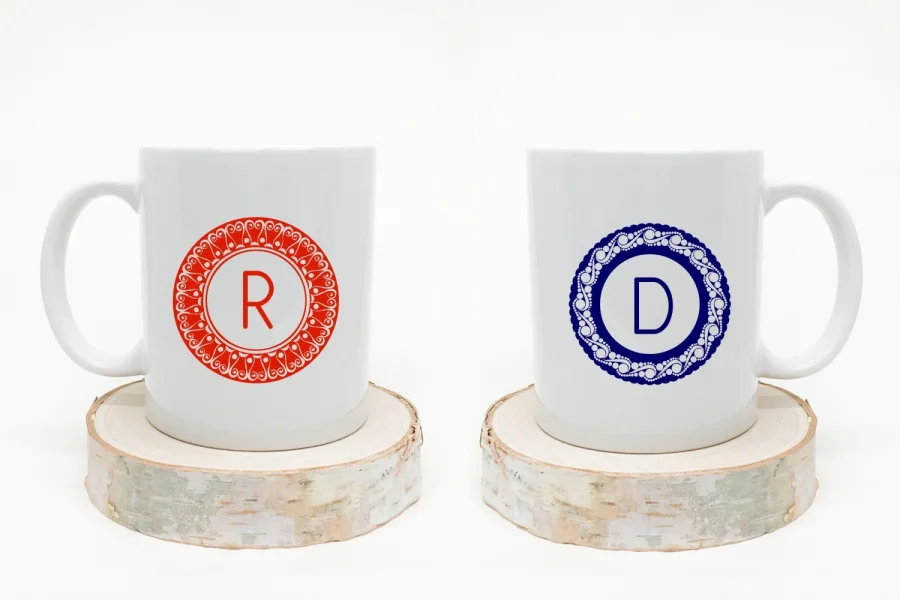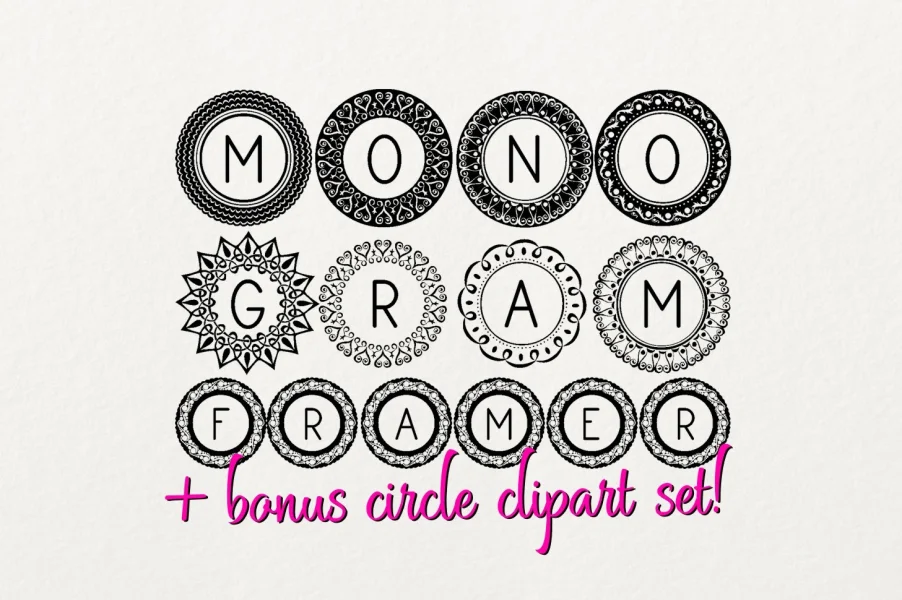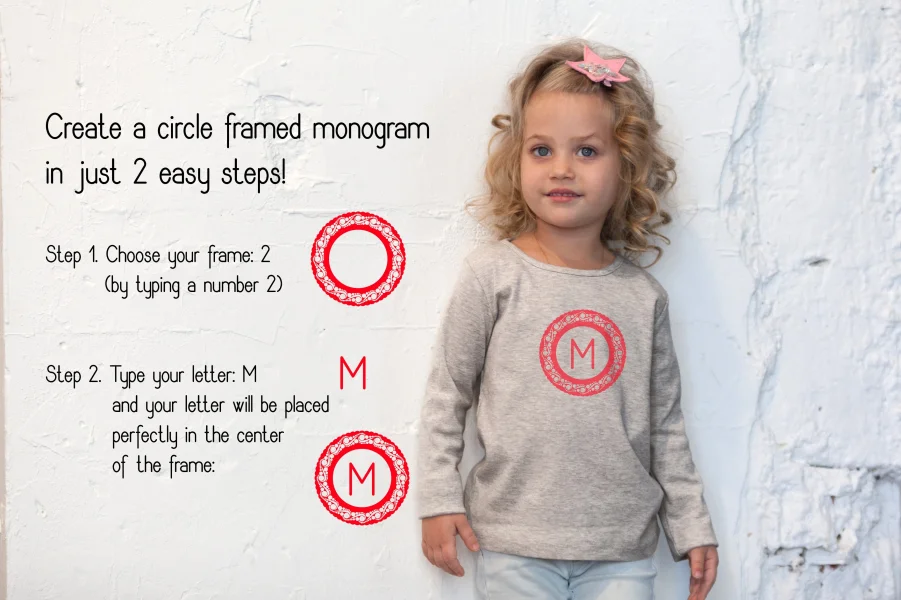
Easy to use:
1. Type number 3, 5 or 8 to get the circle frame (Demo has just 3 circles)
2. Type your letter you which will be placed in the center automatically.
Which includes 10 circle frames and capitals A-Z, plus circle clipart set as a bonus.